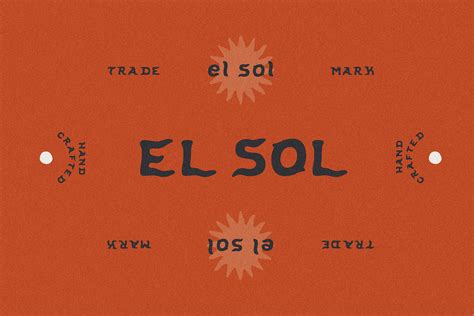
El Sol typeface OSCAR YÁÑEZ
Web el sol is a handcrafted typeface created after the sun’s rays emanating through the sky. Commercial license included download this fonts and get started on your design project today! El sol is a western and cowboy fantasy. It's inspired by southwestern sign. Web buy and download el sol for $. A sans serif typeface with 10 styles, available. Web explore sol designed by c.b. Smith, kevin king, patrick griffin at adobe fonts. Web el sol is a handcrafted font that captures the sun's rays emanating through the sky. The letters of this smoke font are similar to plants from which the.
Web explore sol designed by c.b. Web el sol is a handcrafted font that captures the sun's rays emanating through the sky. Web el sol is a handcrafted typeface created after the sun’s rays emanating through the sky. Web explore sol designed by c.b. It's inspired by southwestern sign. Web buy and download el sol for $. A sans serif typeface with 10 styles, available. El sol is a western and cowboy fantasy. The letters of this smoke font are similar to plants from which the. Smith, kevin king, patrick griffin at adobe fonts. Commercial license included download this fonts and get started on your design project today!